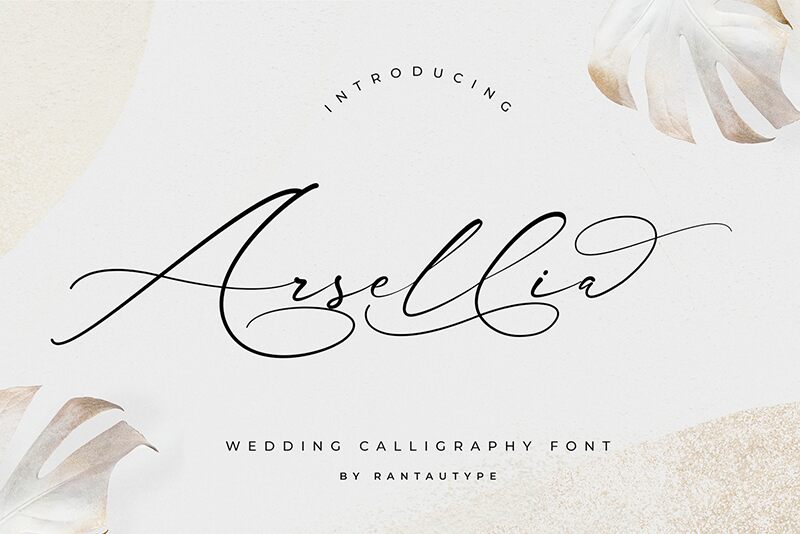
Arsellia font by RantautypeStudio is a free modern calligraphy font with elegant and flowing letterforms. The typeface is sophisticated, graceful, and romantic in feel, with decorative flourishes. It is suitable for contemporary applications in modern calligraphy and is perfect for pleasant, soft, and formal invitations for special events and occasions.
Use Arsellia to design wedding invitations, greeting cards, or typography artwork. It would look beautiful on packaging, branding, poster design, and any other formal type of communication.